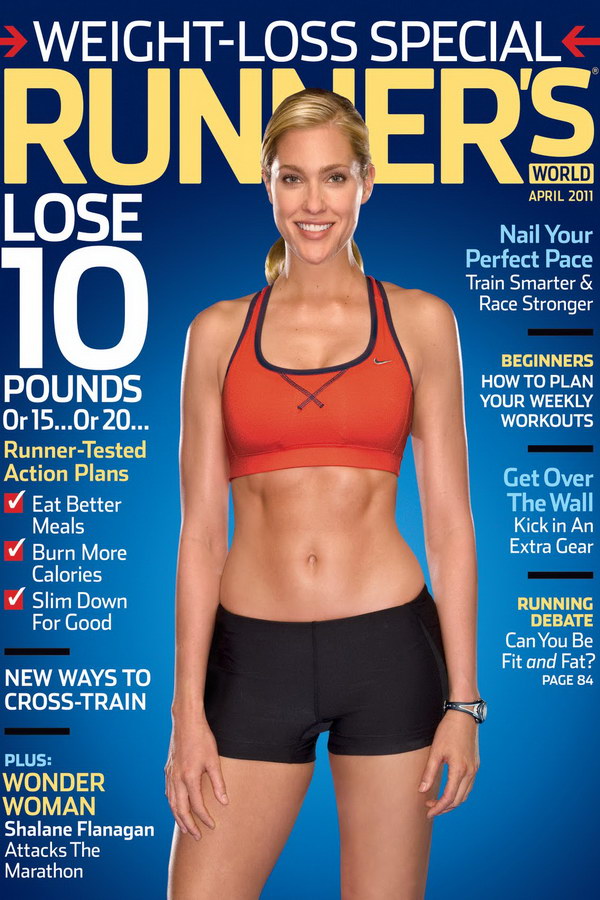
Runner’s World Font
BookRunner’s World is a magazine focused on running and related topics such as nutrition, training, and gear. It provides advice, tips, and inspiring stories for runners of all levels.
The magazine nameplate most likely features Stainless Condensed Bold as its font, which was created by Cyrus Highsmith as a sans-serif variation of his slab serif Dispatch. This font is a commercial one, and further information can be accessed here.